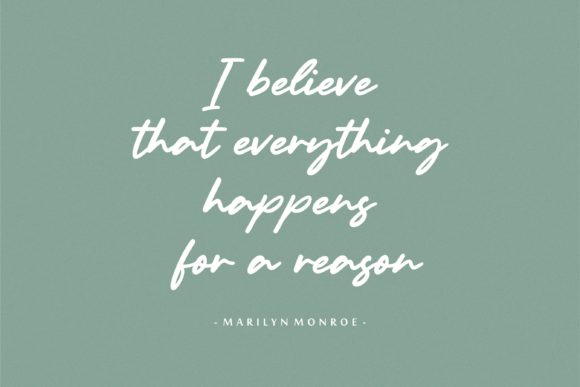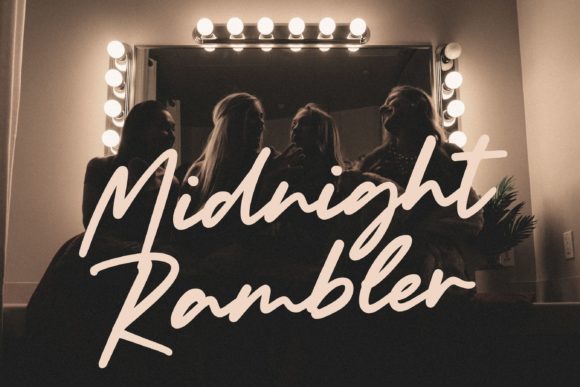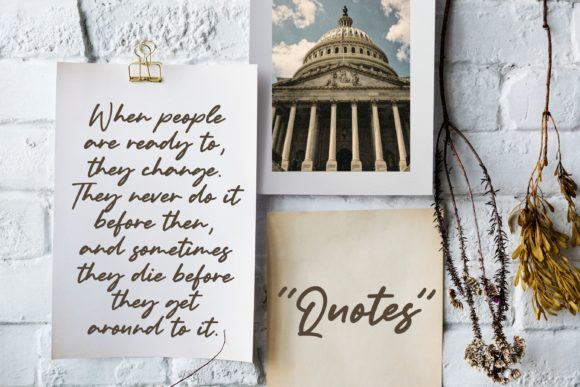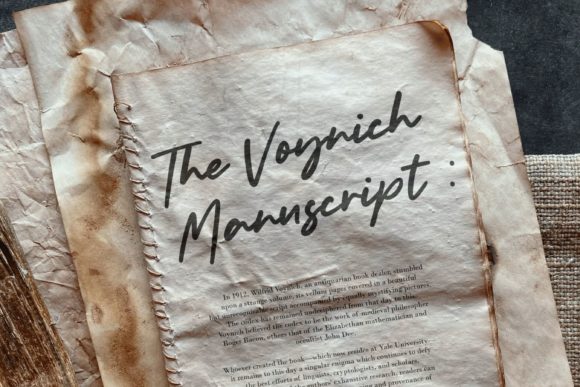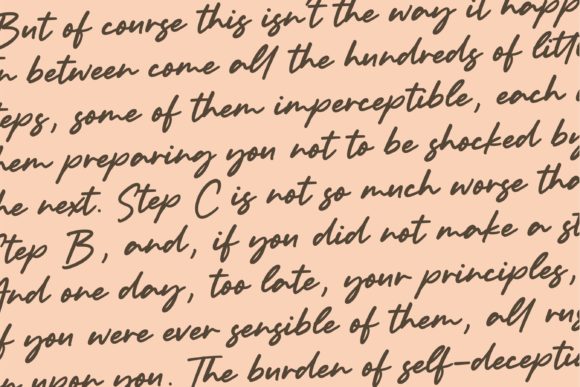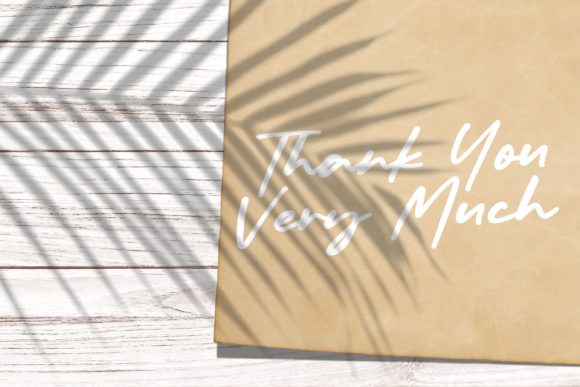
Bolognaise Font
Bolognaise is a relaxed and flowing handwritten font, created with the help of a beautiful brush pen. Fall in love with its incredibly distinct and timeless style and use it to create spectacular designs!